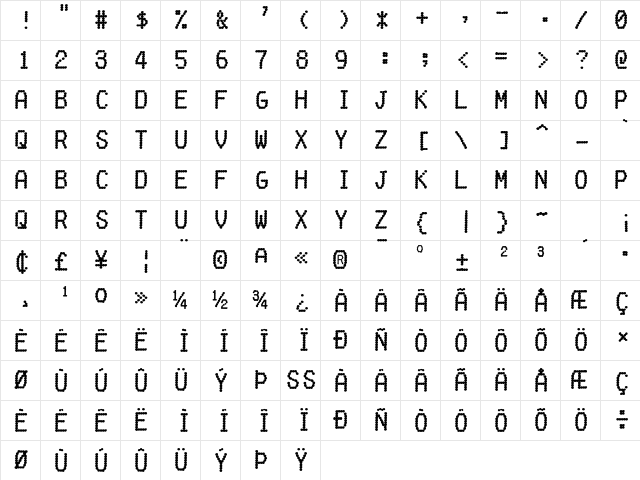
Fake Receipt Regular
Design Context for Fake Receipt Typeface
Fake Receipt takes a measured approach to typography — its balanced proportions and neutral character make it a reliable workhorse for both digital and print work.